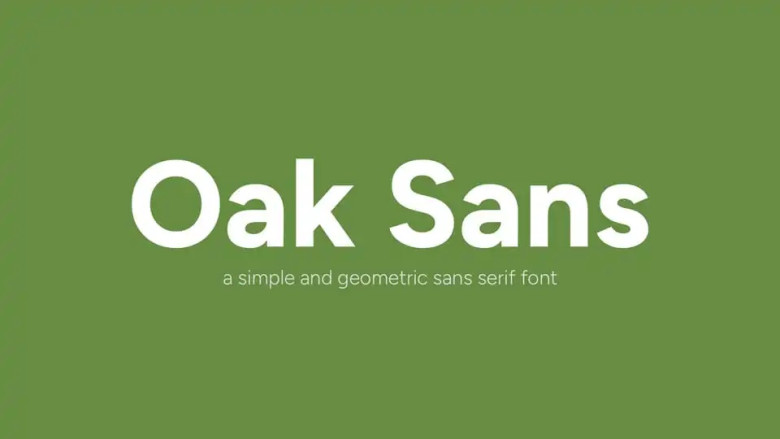
Oak Sans Font
Oak Sans typeface features an approachable and straightforward geometric sans serif family that’s tailored towards user interface designers who might otherwise choose Montserrat or pirate Circular fonts. There are six weights spanning Thin to Black, making Oak Sans an adaptable font suitable for text and display applications alike.
Oak Sans Serif Typeface